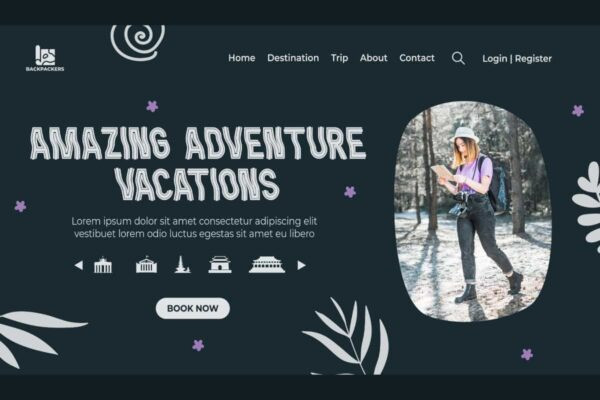
Storm Racer Font
Storm Racer Font is a unique wavy decorated font with a playful racing inspired style font that can enhance your design, by RaisProject. The lines inside the characters make this font look layered and wavy, making it look different. It will be great for poster, signage, stationery, custom design, product packaging, quotes, brand image, advertisement, invitation, label, marketing material, website page, and more!
Storm Racer Font includes a full set of ALL CAPS for Uppercase and Lowercase Letters, Numerals, and large range of Punctuation. This modern font will be suitable for various industries, such as sports, automotive, fashion, game, barber shop, cafe, event or festival, photography, printing, publishing, etc.